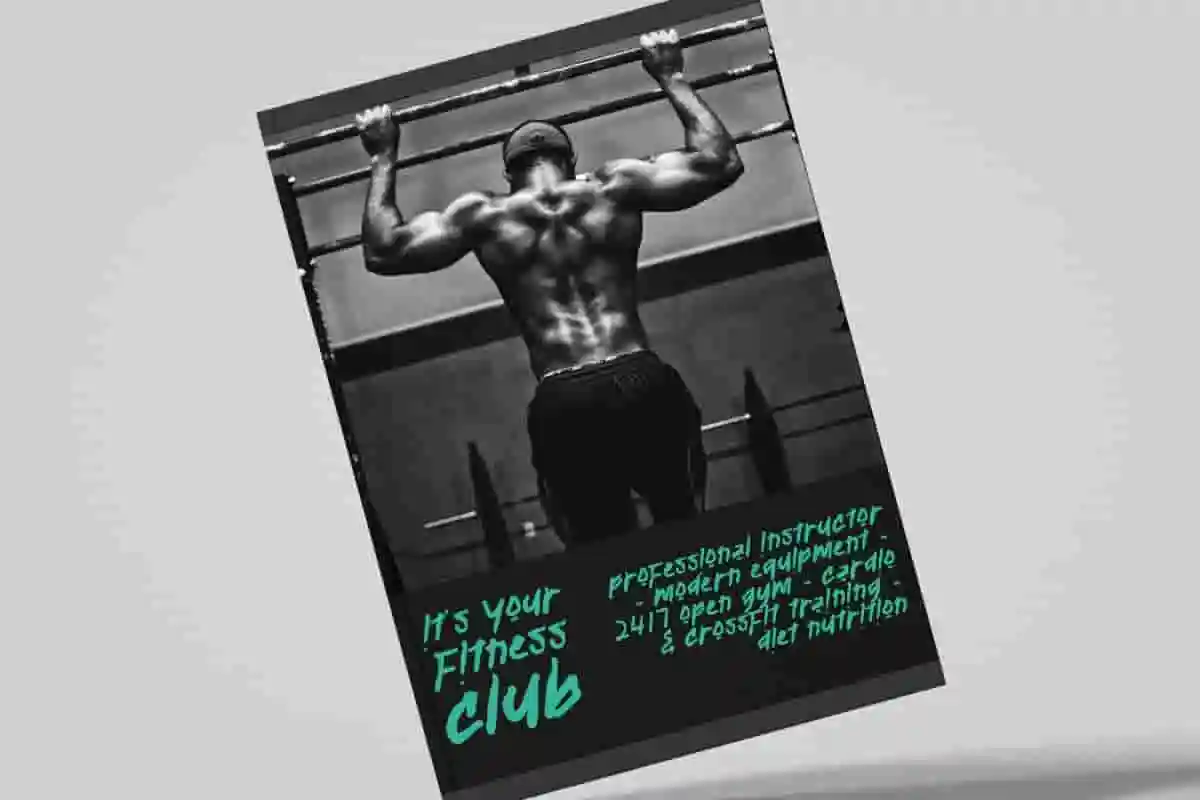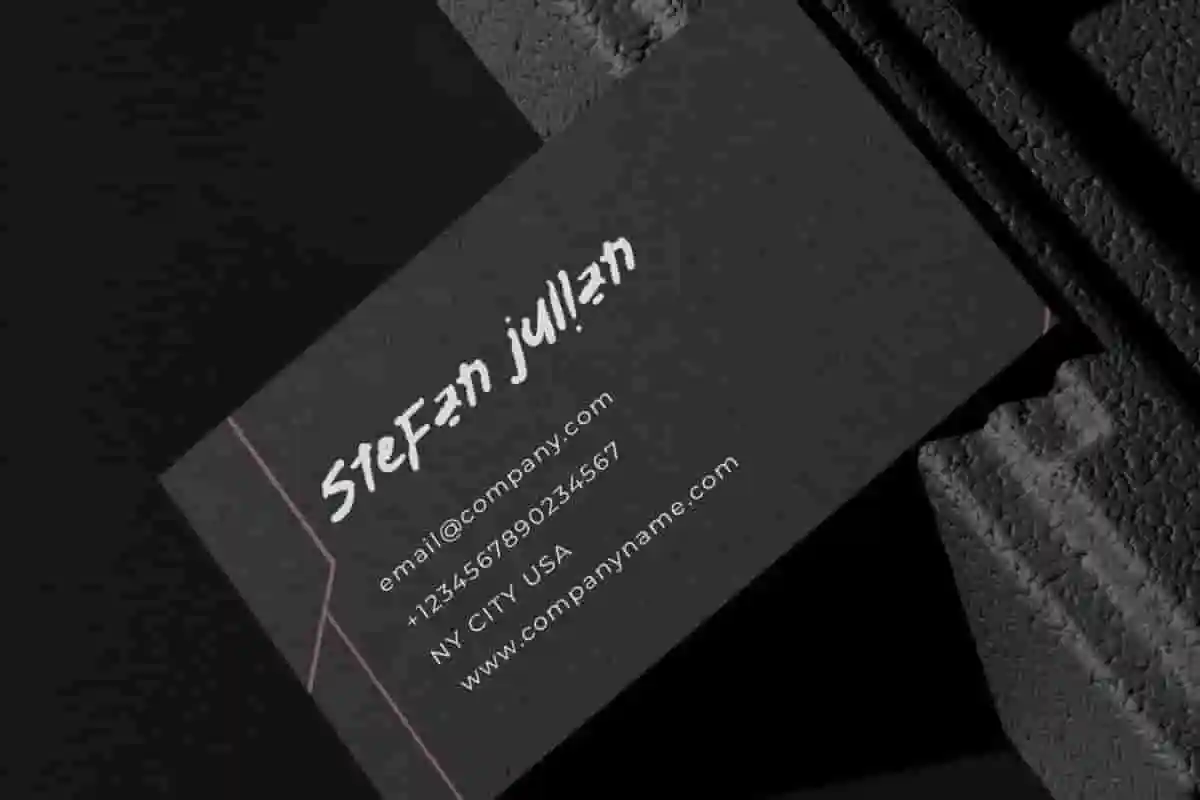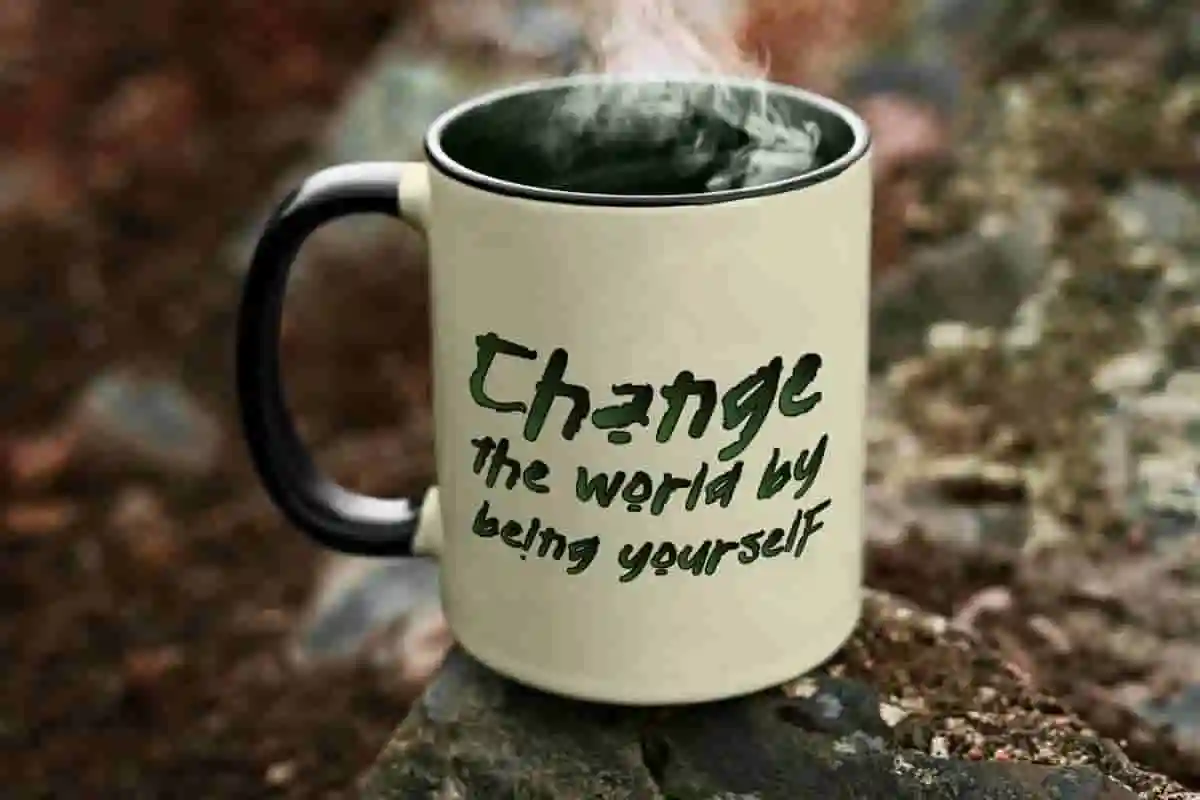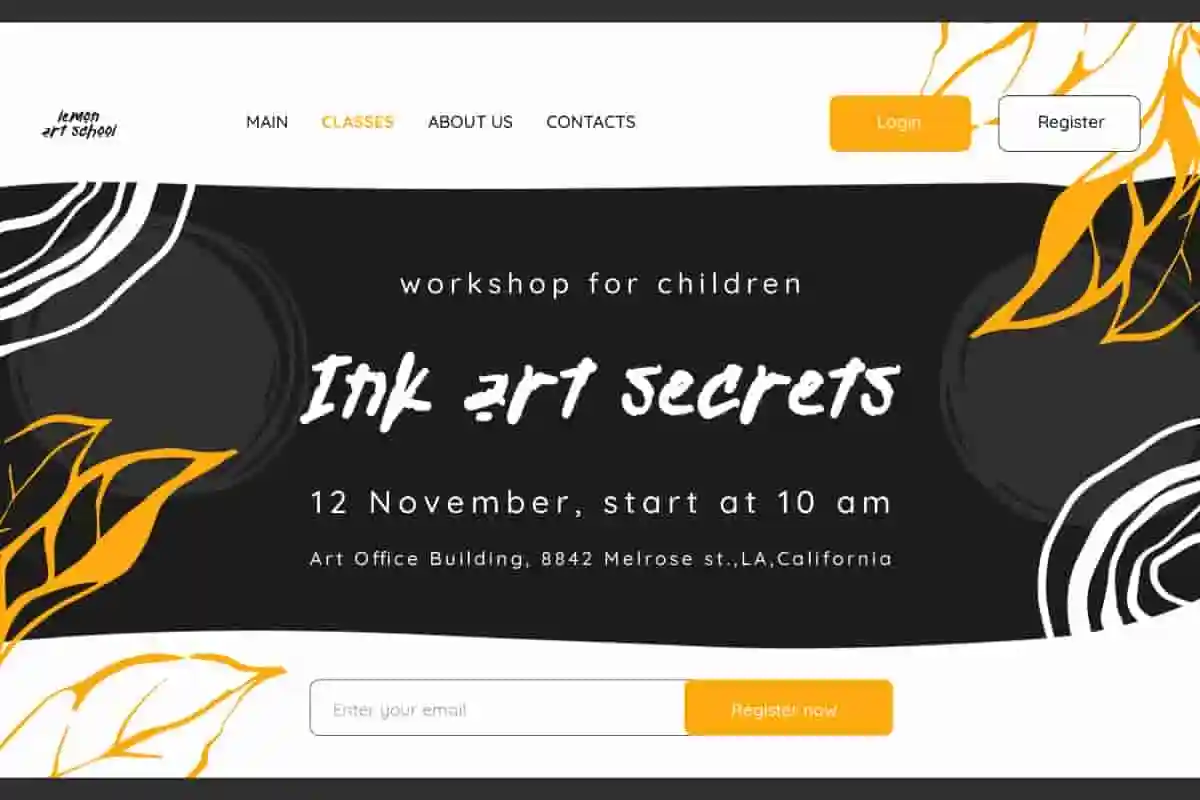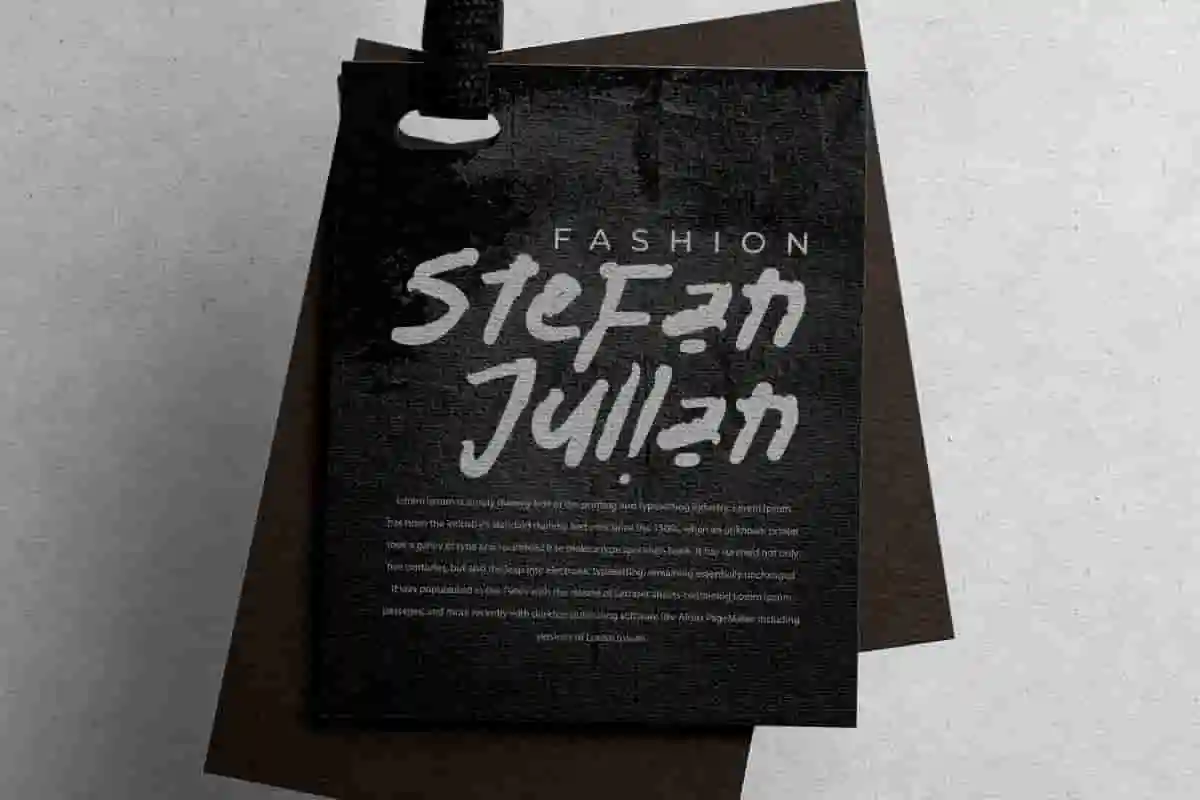
Radar Index Font is a messy brush display font with, created by NoahType. The appearance of this font looks like it was made from messy graffiti brush strokes , which can give a creepy impression. It will be perfect for any designs, such as brand image, cover, custom design, invitation, label, marketing material, menu, poster, printing, product packaging, quotes, signage, stationery, website, and many more!
Radar Index Font includes full set of Uppercase and Lowercase Basic Characters, Numerals, Punctuation, and Symbol. This font will make your design amazing and also a perfect choice for many industries, such as accessories, advertising, art, café, event or festival, fashion, game, movie, music, printing, publishing, etc.